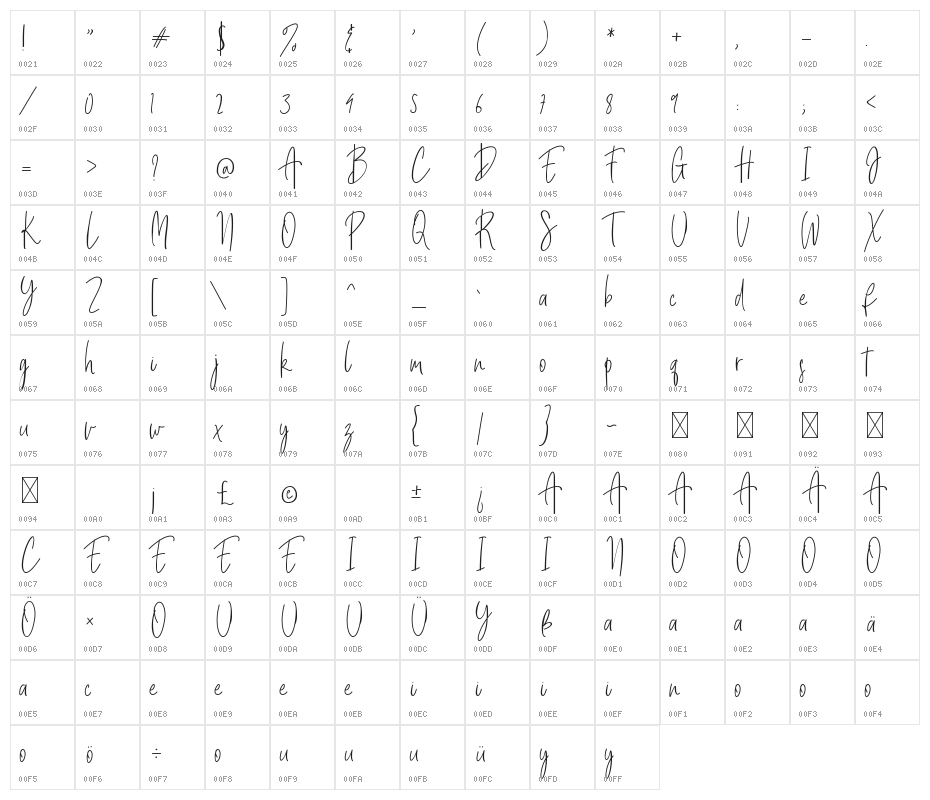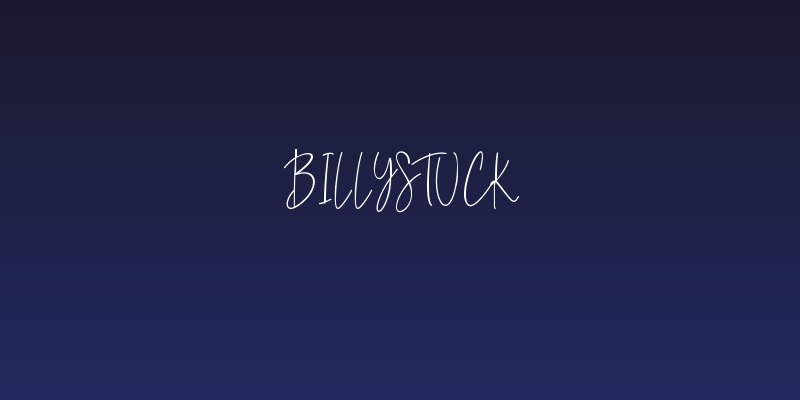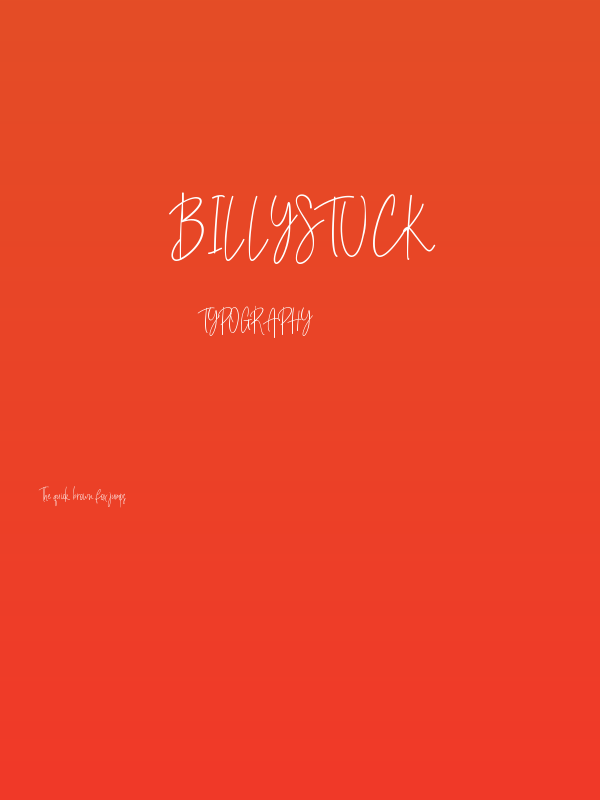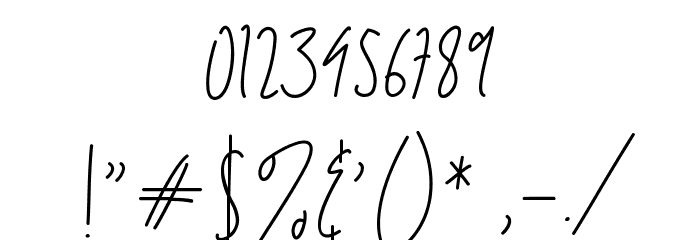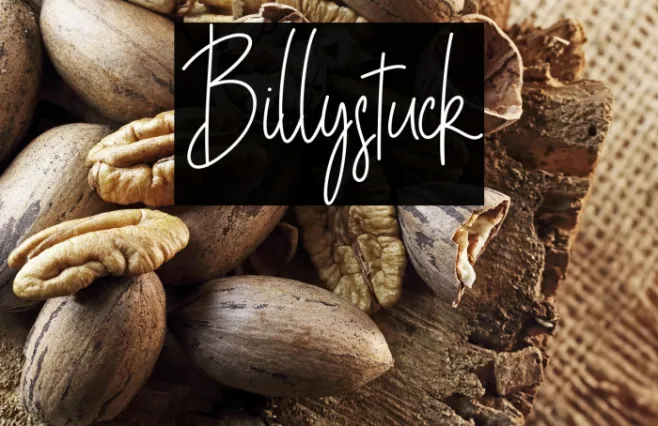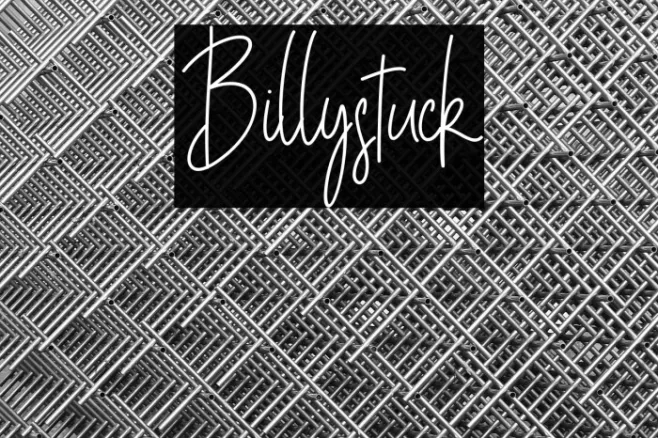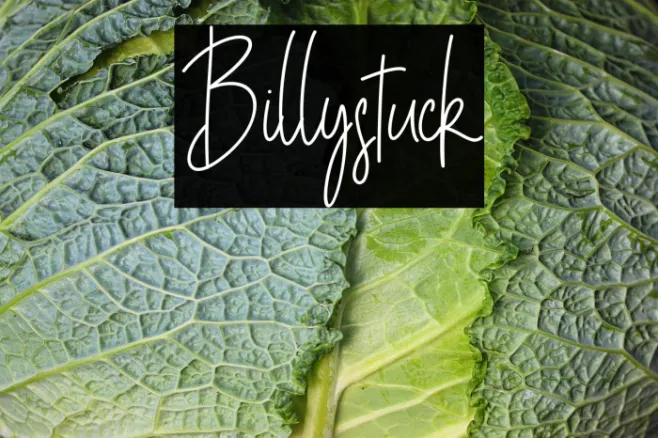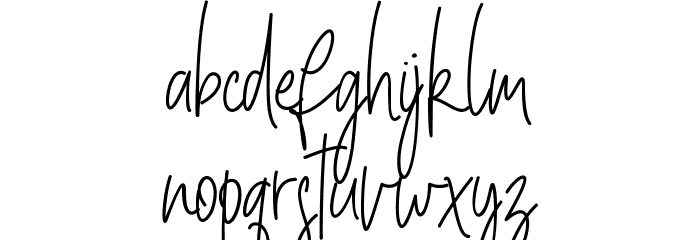
Billystuck Font
Billystuck Description
This font features a playful and casual handwritten style, characterized by its tall, narrow letters and slightly irregular strokes. The uppercase letters are bold and expressive, with a distinctive flair that adds personality. The lowercase letters maintain a consistent flow, enhancing the font's readability while retaining its unique charm. Numbers and special characters are crafted with the same attention to detail, ensuring a cohesive look across all text elements. The overall design exudes a sense of spontaneity and creativity, making it ideal for projects that require a personal touch.